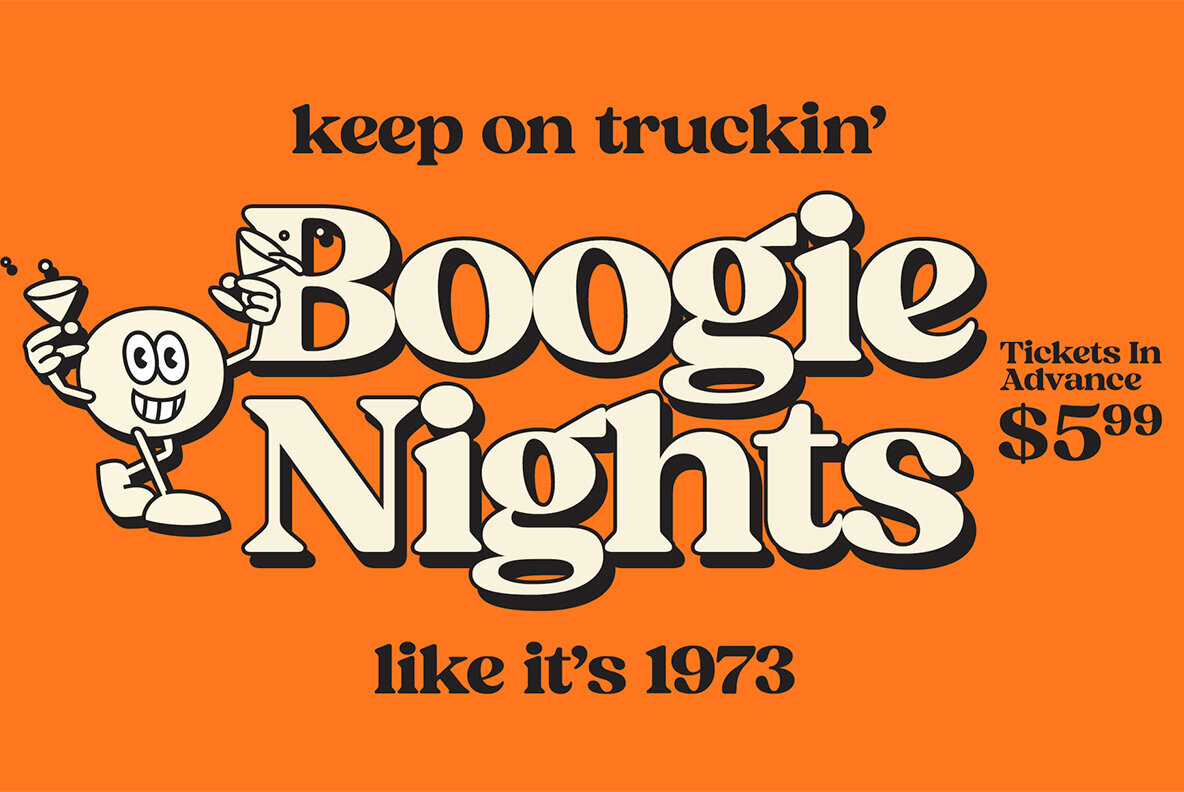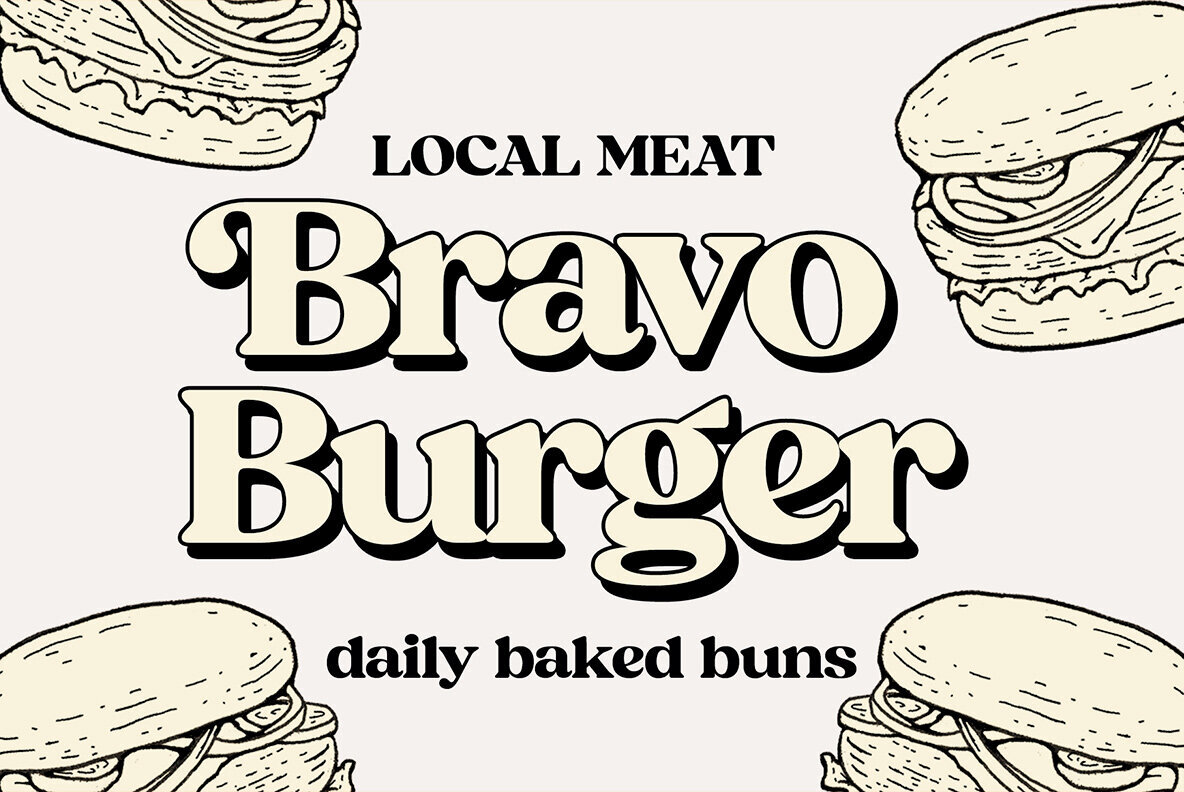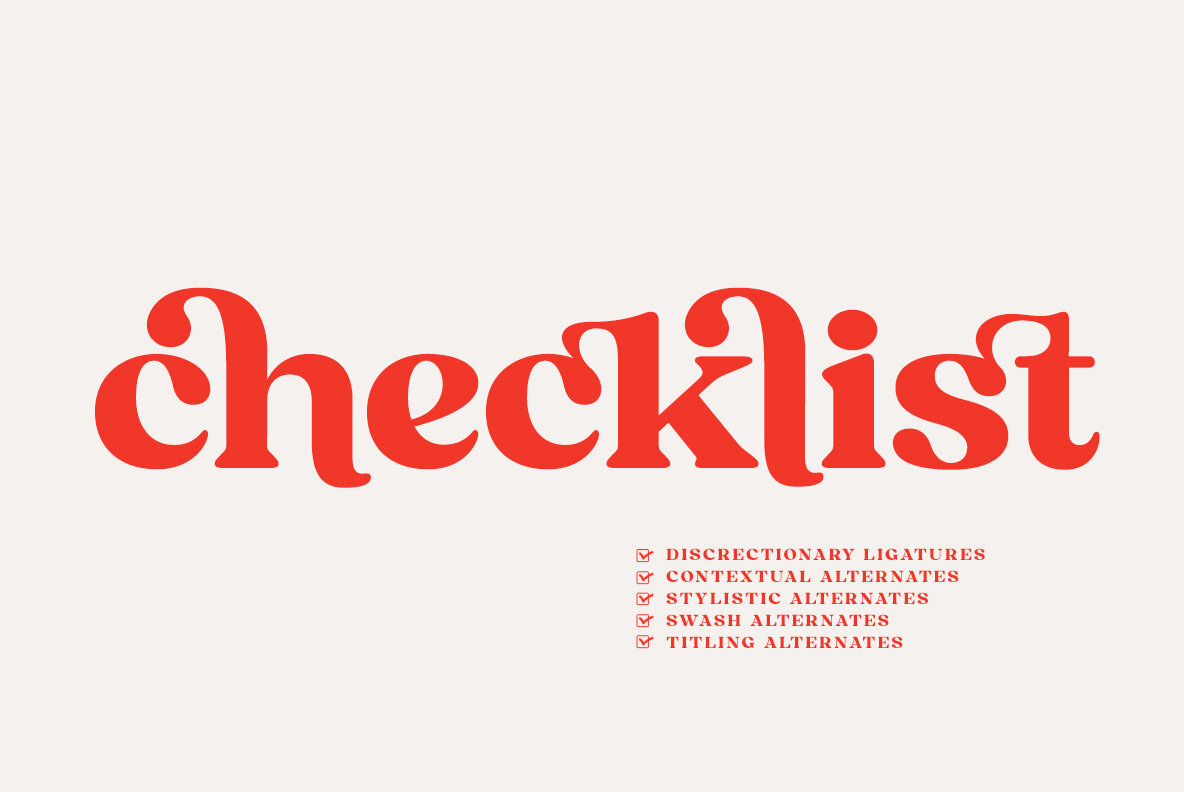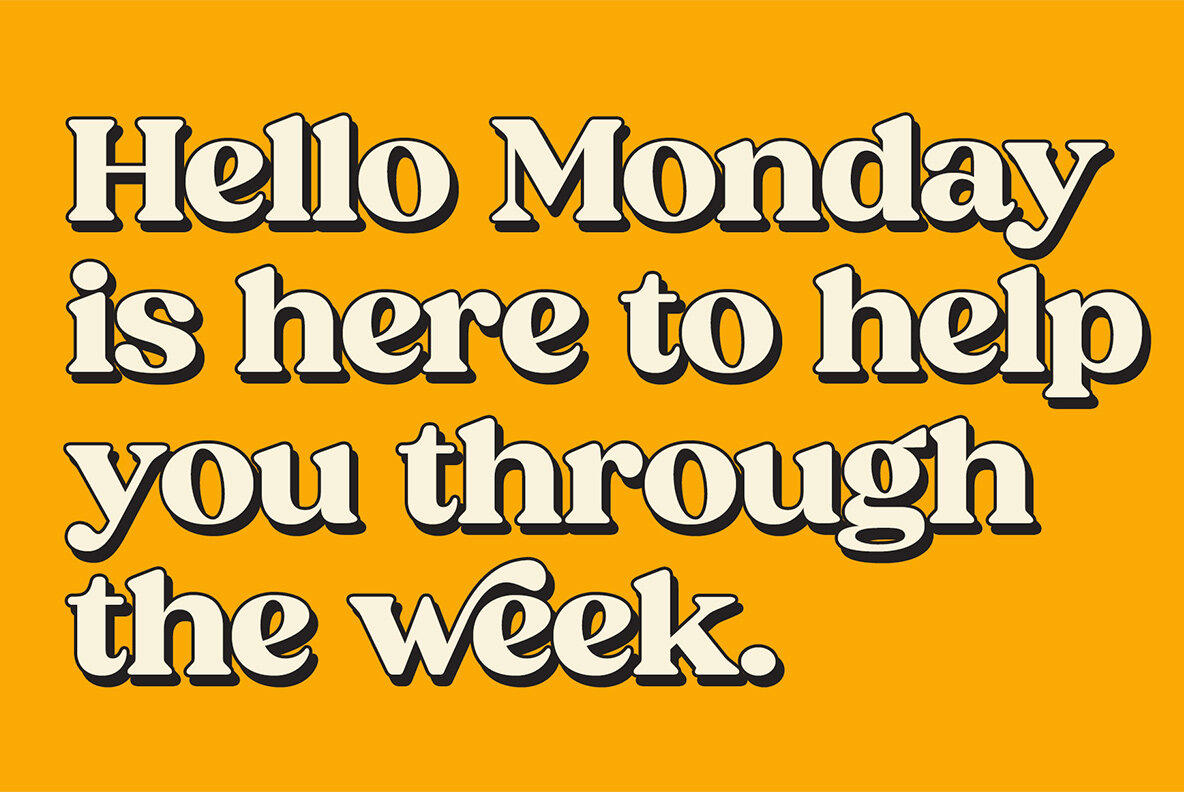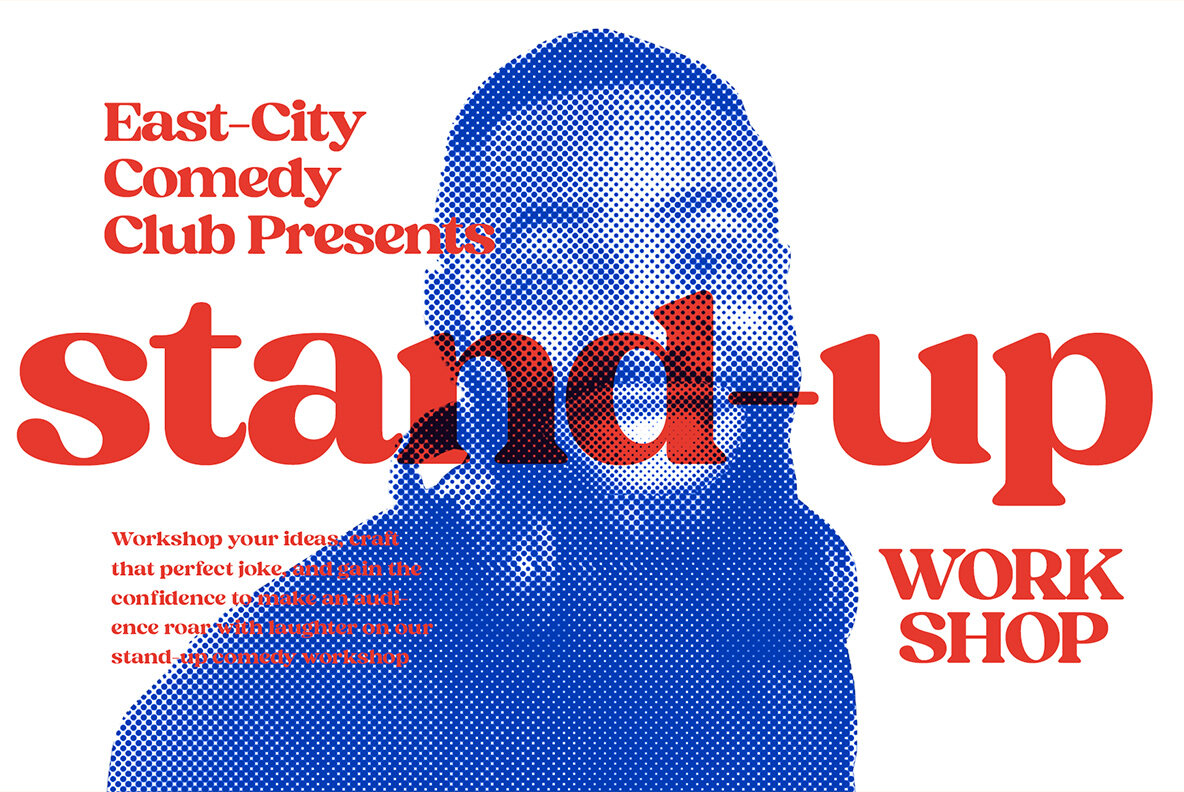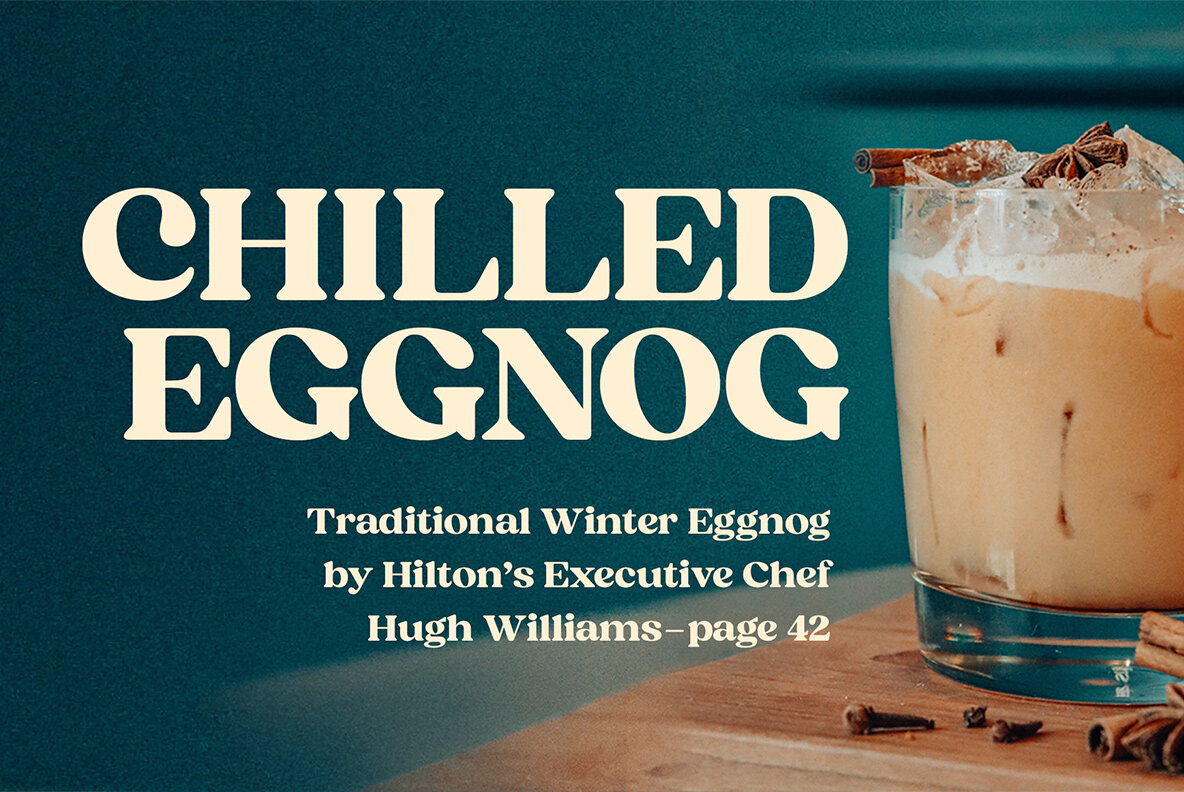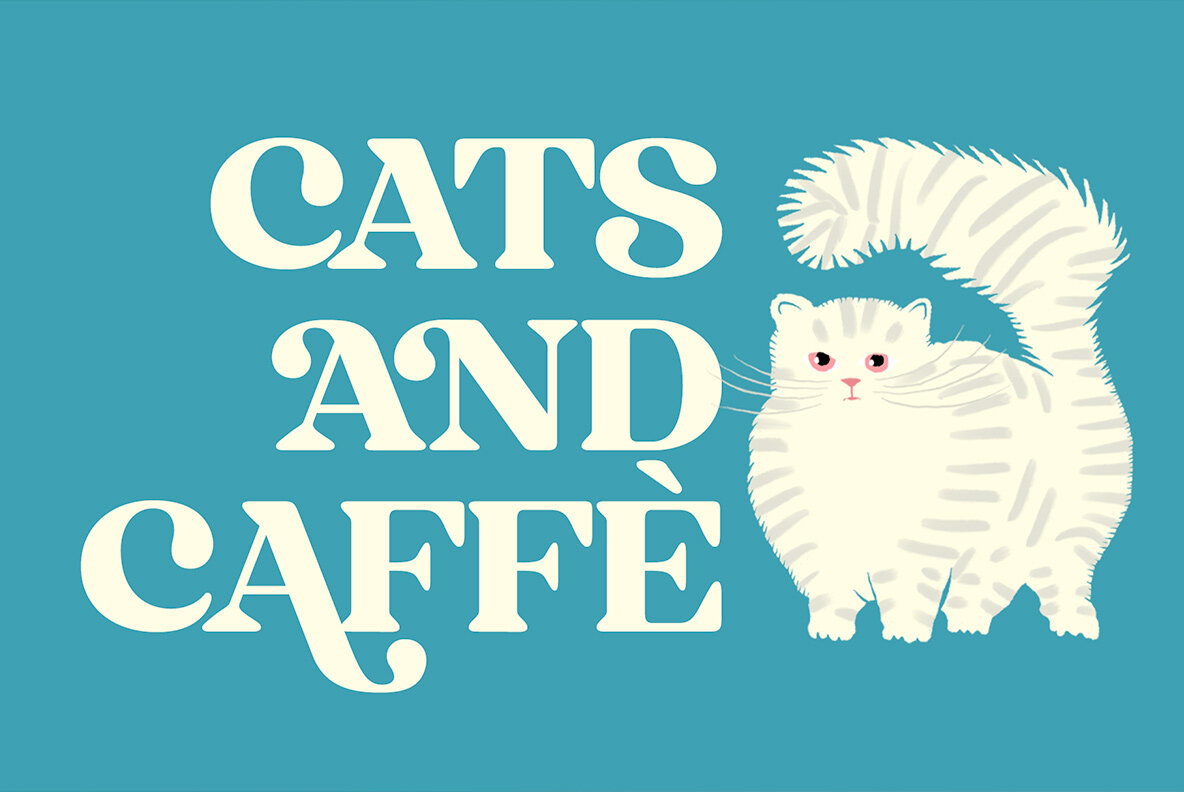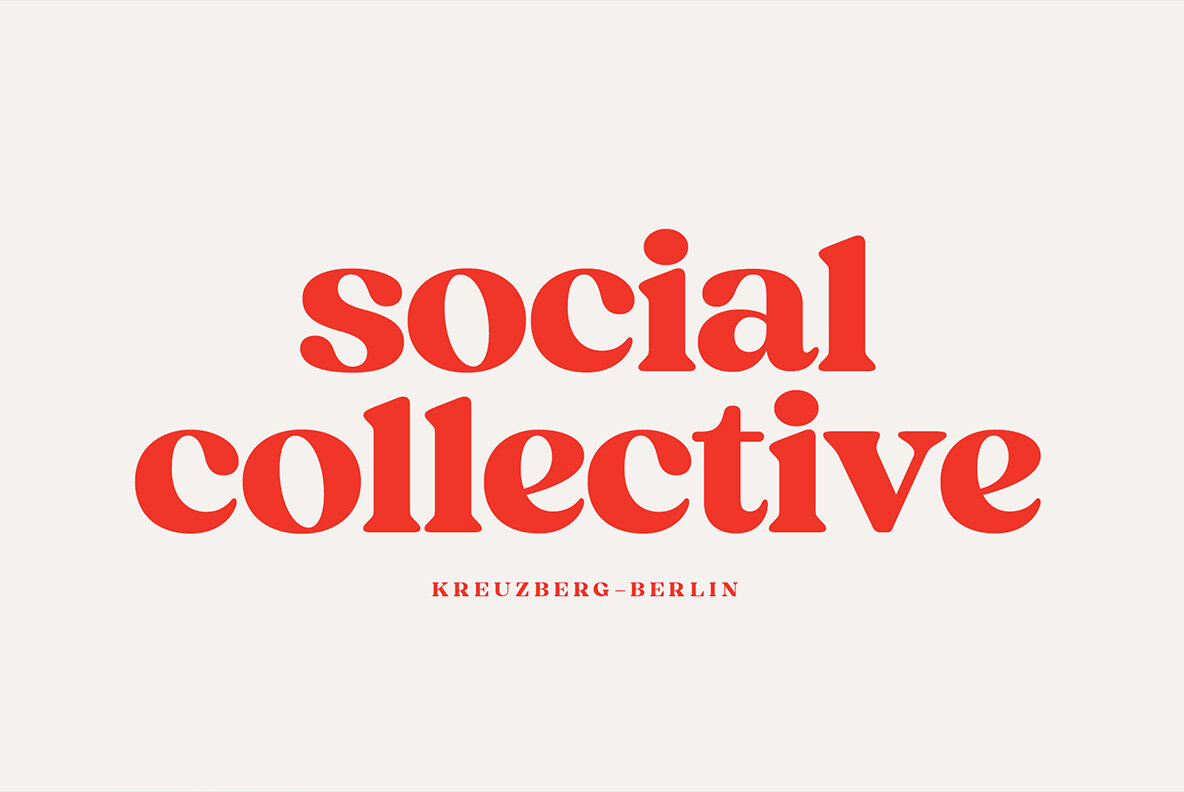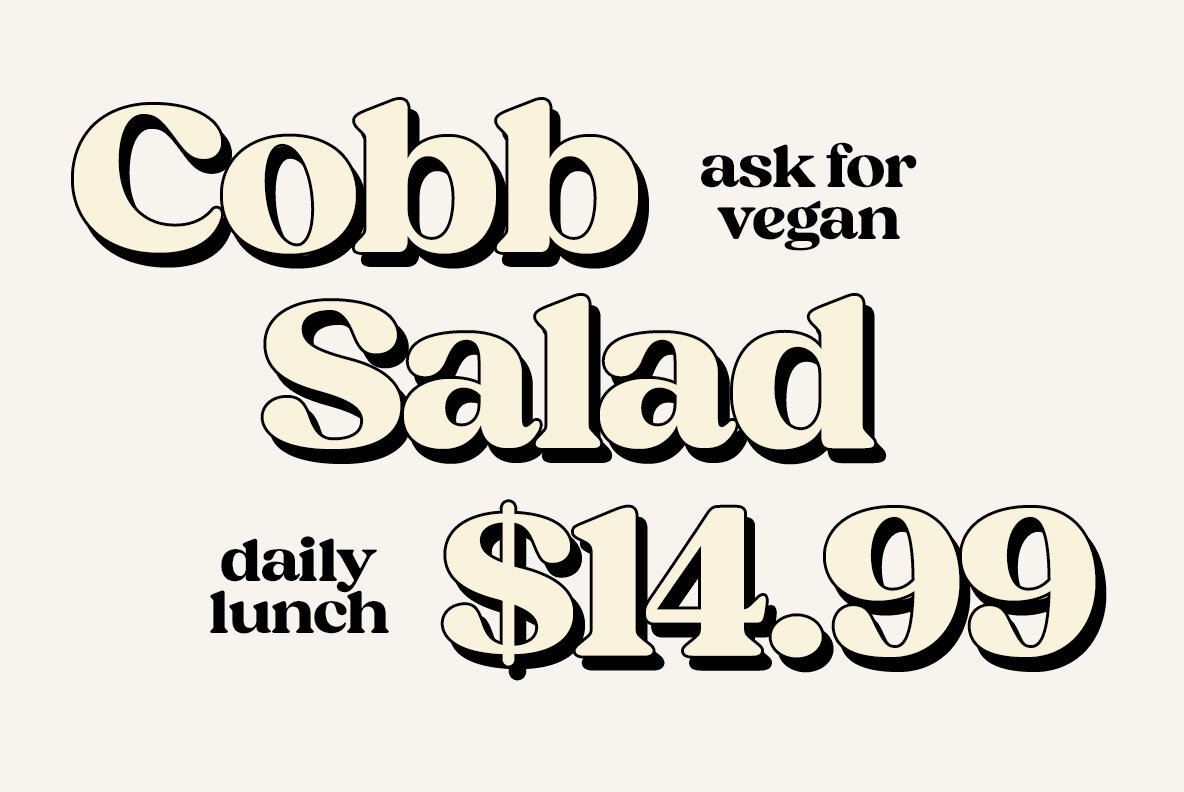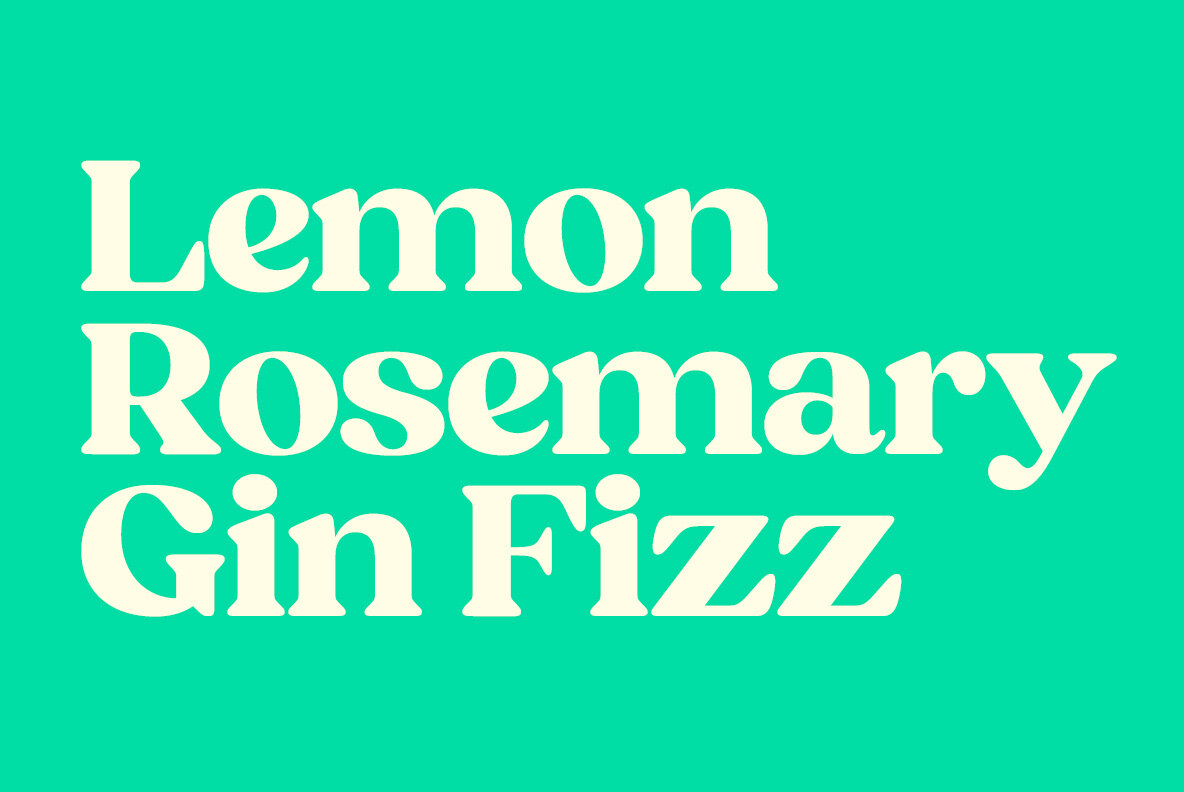
Hello Monday Font
Hello Monday Bold
Hello Monday is a bold and wide vintage style serif font with a friendly charm and a reminiscence of a warm nostalgic feeling.
Hello Monday is a great typeface for contemporary graphic design with that certain feeling of familiarity. It works well on logos, packaging, restaurant graphics, or any display use, as well as in headlines or shorter texts. Try Hello Monday with reduced tracking for tighter word images, or if you want to use it in really small sizes add some tracking.
Hello Monday is equipped with Contextual, Swash, Stylistic and Titling alternates as well as Discretionary Ligatures and even more extra alternates. All these features can be accessed by OpenType controls or straight from Character or Glyphs window. Swash Alternates are the most exaggerating ones while Stylistic Alternates do smaller changes. In addition Hello Monday has 15 ornaments that can be accessed from 0-9 and punctuation by clicking on Titling Alternates.